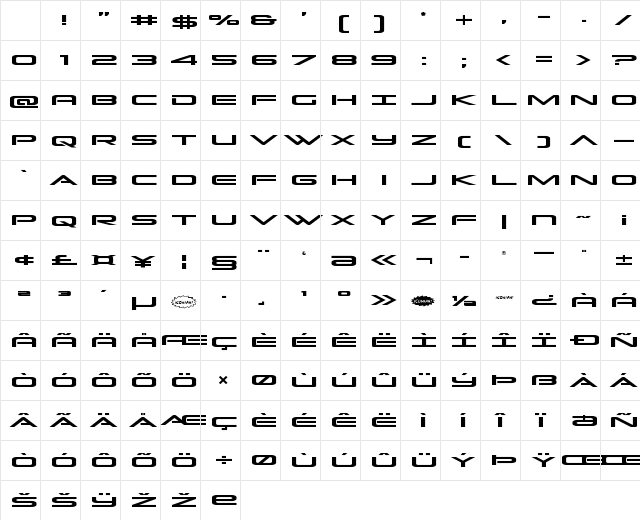
Grand Sport Title Regular
Grand Sport Title Family
Design Context for Grand Sport Title
Grand Sport Title brings high-energy athletic personality to the page - its confident, muscular forms are built for impact.
Pro Tip: Use Grand Sport Title in all-caps headlines where its athletic energy can fully express itself. Pair with a solid, simple sans for supporting text.